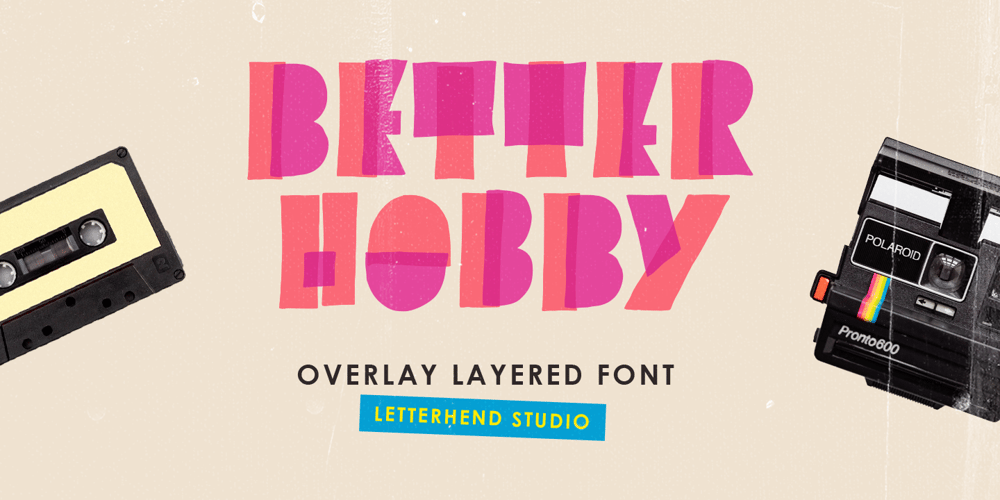
Better Hobby Font Family was designed by Hendry Juanda and published by Letterhend. Better Hobby contains 3 styles and family package options. Introducing, Better Hobby – A unique overlay layered display font. This font has unique shape, very suitable for casual and playful theme design. This font also perfectly made to be applied especially in logo, and the other various formal forms such as invitations, labels, logos, magazines, books, greeting / wedding cards, packaging, fashion, make up, stationery, novels, labels or any type of advertising purpose.Features : numbers and punctuation multilingual PUA encoded We highly recommend using a program that supports OpenType features and Glyphs panels like many of Adobe apps and Corel Draw, so you can see and access all Glyph variations.